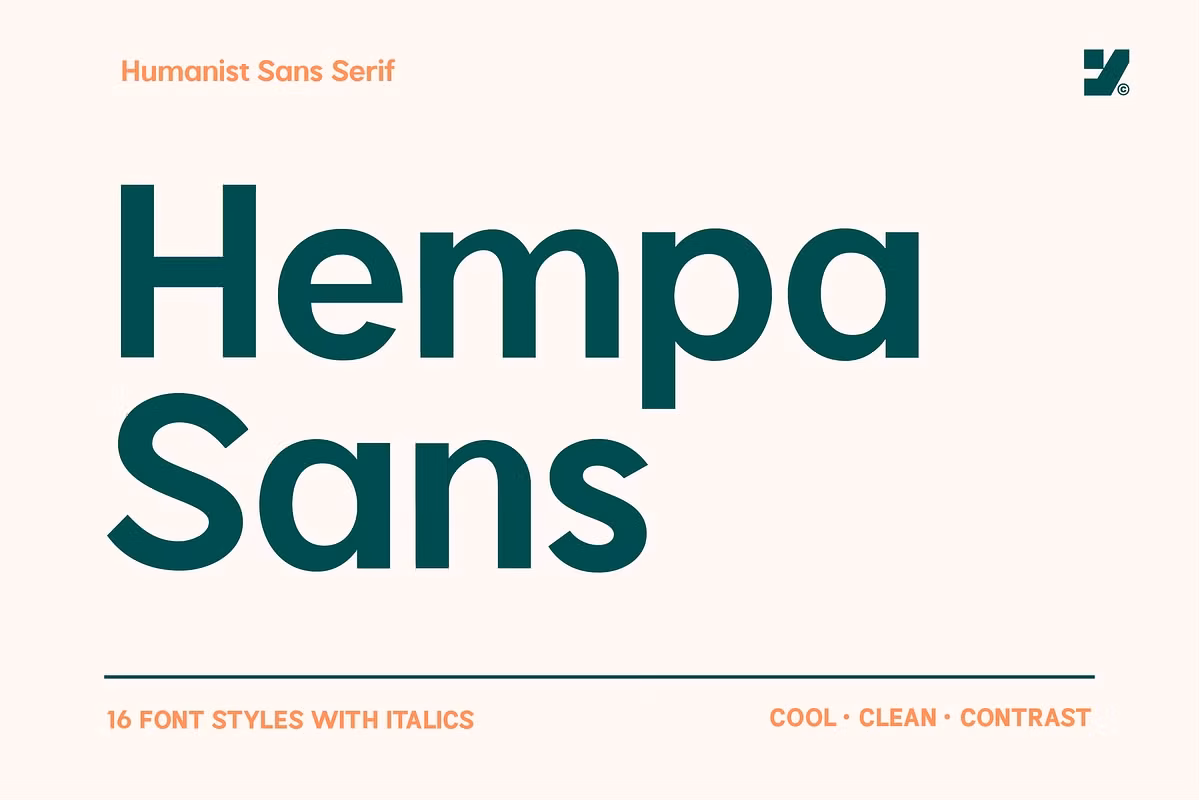
Hempa Sans – Sans Serif Family Fonts Free Download is a clean, modern, and highly versatile typeface family designed for clarity and performance. With multiple weights and styles, Hempa Sans is perfect for branding, websites, editorial layouts, UI design, and professional presentations.
Its simple geometry, balanced proportions, and excellent legibility make it suitable for both display and body text. Whether you're designing a sleek corporate identity or a minimal app interface, Hempa Sans adapts effortlessly to any context.